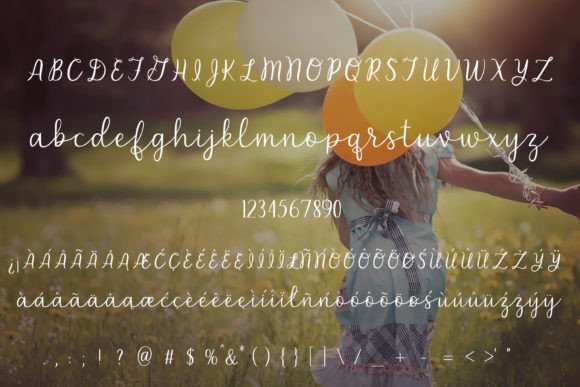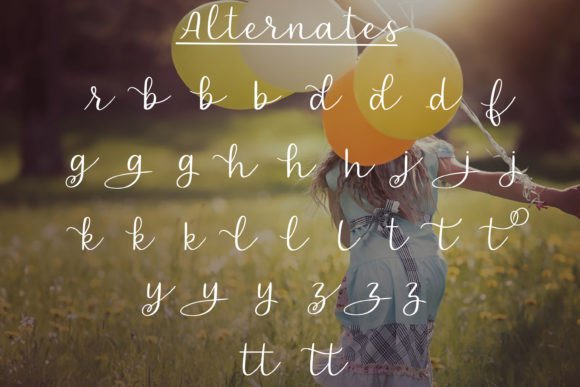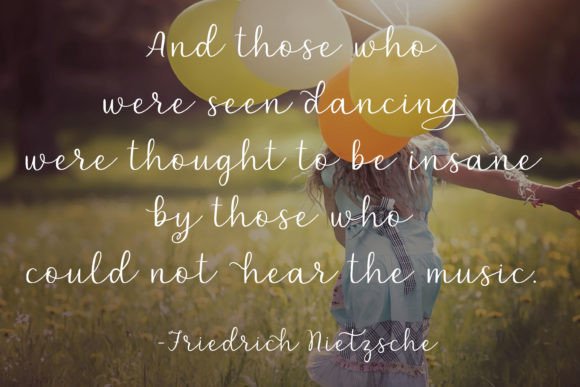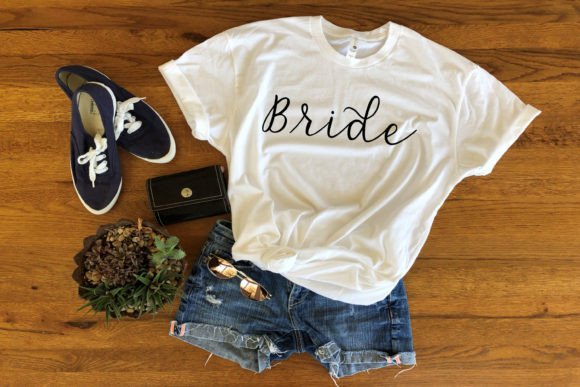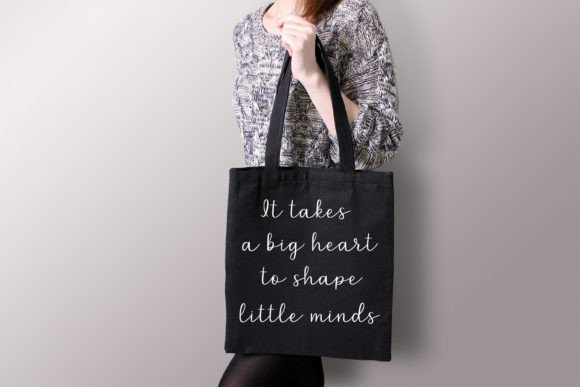
Discover the Secret to Effortless Style: Introducing the Carefree Font
Who hasn’t felt that rush of excitement when they stumble upon the perfect font for their project? It’s like finding a missing piece of the puzzle, and suddenly everything falls into place. For designers, this moment is all too familiar, and it’s exactly what we’re looking for in a font. That’s why we’re thrilled to introduce the Carefree Font, a modern and casual script font that embodies the essence of effortless style.
The Carefree Font is designed to capture the laid-back yet fashionable vibe that’s perfect for branding, social media graphics, or personal projects. With its smooth and flowing letterforms, this font exudes a sense of relaxed elegance that’s hard to resist. Whether you’re a seasoned designer or just starting out, the Carefree Font is an invaluable addition to your toolkit, allowing you to bring your creative vision to life with ease.
Carefree Font Key Features
- Font Family: Carefree Font comes in a single font family with multiple weights and styles, making it versatile for various designs.
- Character Count: The font contains over 200 characters, including Latin, Cyrillic, and Greek alphabets, as well as punctuation marks and symbols.
- Unique Characteristics: Carefree Font features a distinctive, hand-drawn style with subtle imperfections, giving it a friendly and approachable feel.
Designer Review: Carefree Font
When I first laid eyes on Carefree Font, I thought I had stumbled upon a gem. ✨ Its playful, handwritten feel immediately caught my attention. The font’s unique characteristics, such as its organic lines and subtle imperfections, give it a friendly, approachable vibe that’s perfect for creating a sense of warmth and approachability in branding and marketing materials.
- ✨ Wide range of weights and styles, making it suitable for various applications
- ✨ Beautifully crafted, with attention to detail in every letterform
- ✨ Suitable for a variety of industries, from food and beverage to healthcare and education
However, there are some limitations to consider: ⚠️ The font may not be the best choice for formal or professional settings, as its informal feel may not be suitable for more serious or technical content. Additionally, the font’s quirks and imperfections can sometimes make it difficult to read, especially at smaller sizes or in complex text.
Overall, I think Carefree Font is a solid choice for designers looking to add some personality and whimsy to their projects. While it may not be perfect, its unique charm and versatility make it a great addition to any design toolkit.
Getting the Most Out of Carefree Font
Here are some tips to help you get the most out of Carefree Font:
- Use Carefree Font in combination with other fonts to create a unique and playful look.
- Customize the font to match your brand’s color scheme and style.
Carefree Font is perfect for:
- Creating playful and whimsical designs.
- Adding a touch of personality
Alternatives to Carefree Font for Designers
Oswald
Oswald is a sans-serif font designed by Vernon Adams. It’s a great alternative to Carefree Font for headings and titles due to its strong, bold lines. Use Oswald for headings and titles that require a sense of importance and authority. Oswald is more condensed than Carefree Font, making it ideal for small spaces.
Montserrat is a sans-serif font designed by Julieta Ulanovsky. It’s a great alternative to Carefree Font for body text and paragraphs due to its clean and modern lines. Use Montserrat for body text that requires a sense of sophistication and elegance. Montserrat is more elegant and refined than Carefree Font, making it ideal for high-end designs.